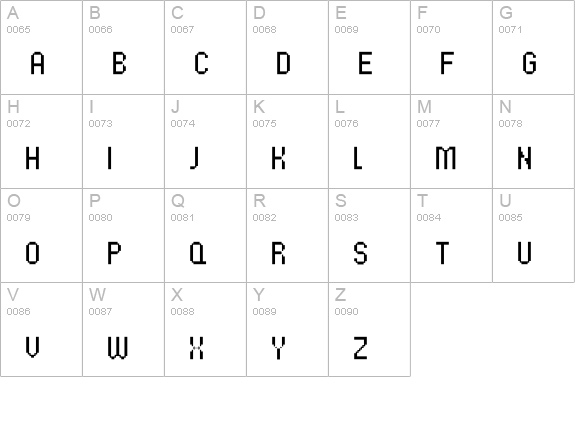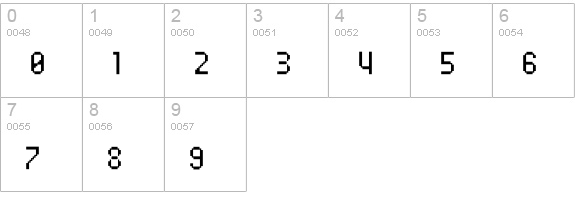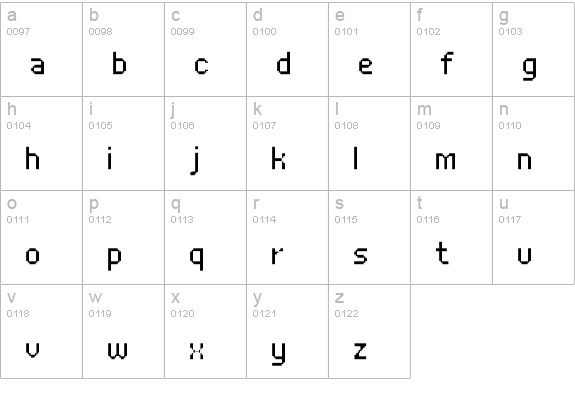
Introducing UNDA-BitmapFine, a visually stunning font that effortlessly combines retro charm with a modern twist. With its intricate details and pixel-perfect precision, this font is a true masterpiece for all design enthusiasts. UNDA-BitmapFine is the perfect choice for projects that require a touch of nostalgia, as it captures the essence of vintage computer graphics. Its unique style and distinct character make it ideal for creating captivating headlines, eye-catching logos, and memorable branding materials. Featuring a wide range of characters, including uppercase letters, lowercase letters, numerals, and punctuation marks, UNDA-BitmapFine offers endless creative possibilities. The carefully crafted design ensures legibility at any size, making it suitable for both print and digital applications. But what makes UNDA-BitmapFine even more remarkable is that it is freely available to download at FontsMarket.com. This means that designers and typographers can enjoy the versatility and beauty of this font without any financial constraints. Whether you're a seasoned professional or an aspiring creative, UNDA-BitmapFine is the perfect addition to your font collection. So, why wait? Embrace the nostalgia and unleash your creativity with UNDA-BitmapFine. Download it for free at FontsMarket.com and elevate your designs to new heights.